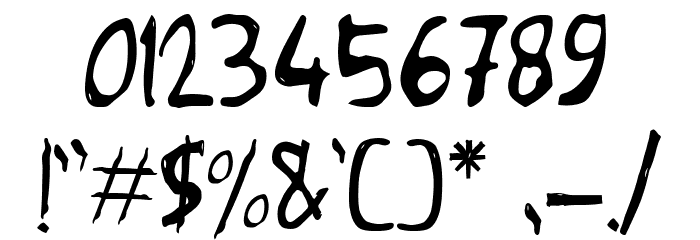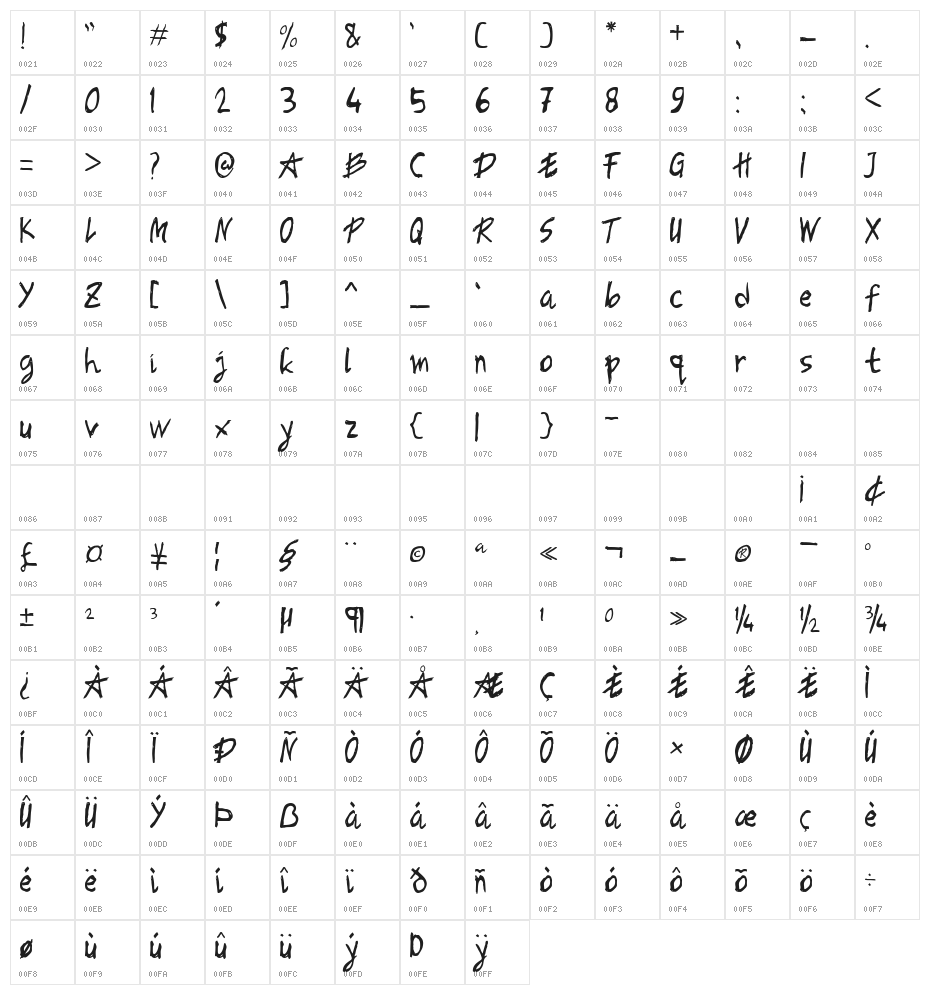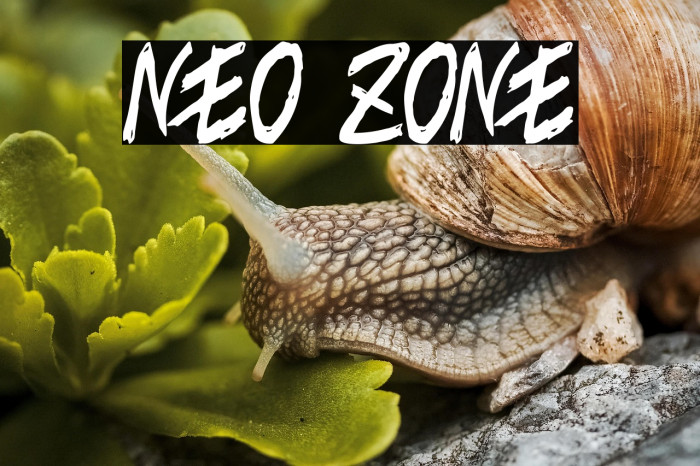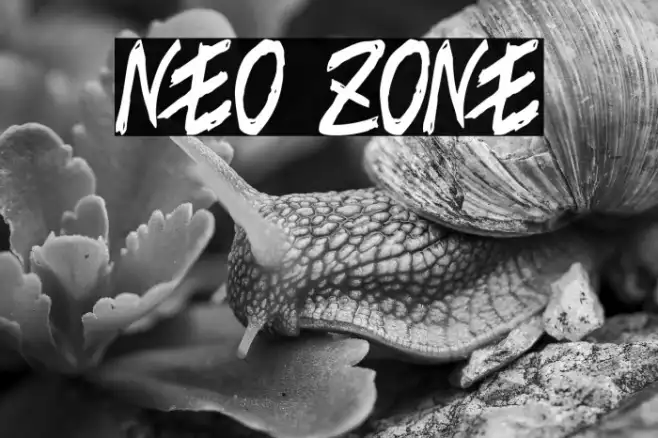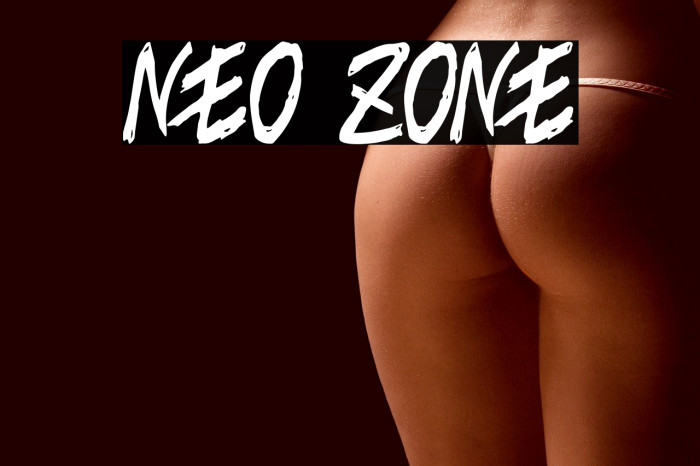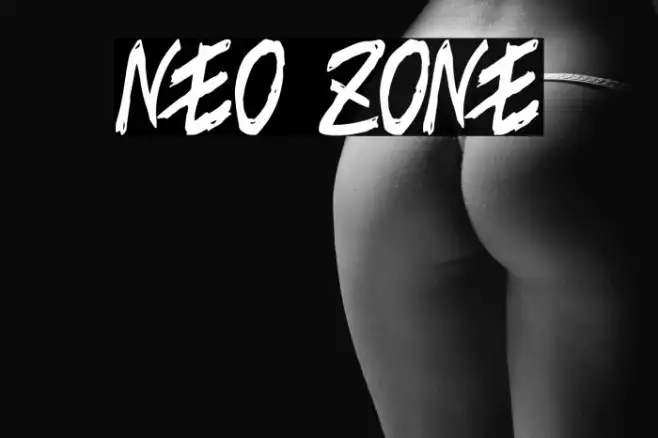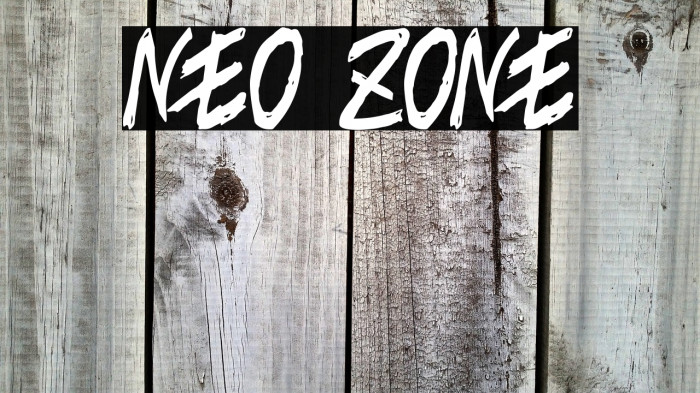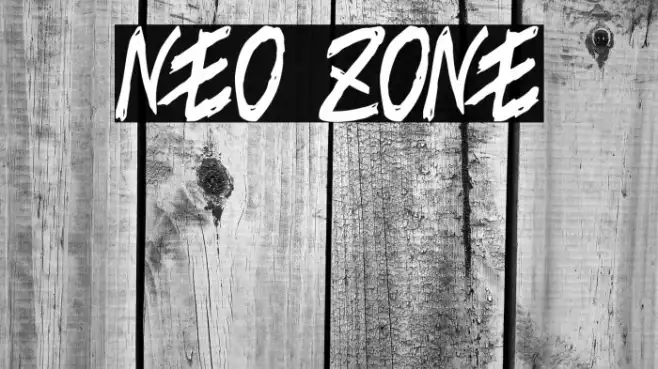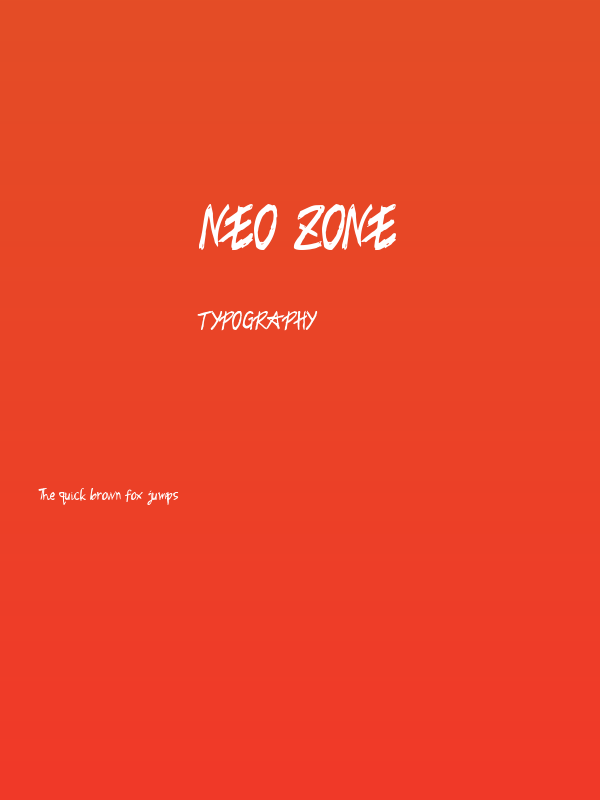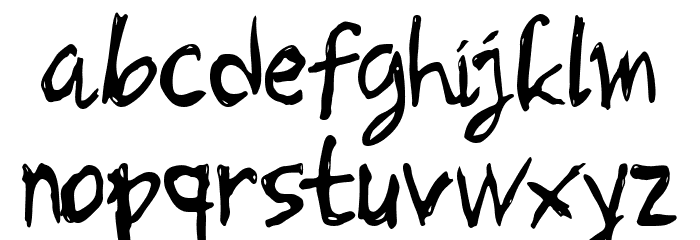
NEO ZONE Font
NEO ZONE Description
This font exudes a bold, energetic, and expressive style, reminiscent of dynamic brush strokes. The characters are irregular and slightly slanted, giving a sense of movement and spontaneity. The uppercase letters are particularly striking, with varying thicknesses that add to the hand-drawn aesthetic. Lowercase letters maintain this lively character, while numbers and special characters follow suit with the same artistic flair. This font is perfect for projects that require a personal touch or an artistic edge, such as posters, album covers, or creative branding.
| Proposed Projects | Ideal for posters, album covers, creative branding, and artistic projects. |